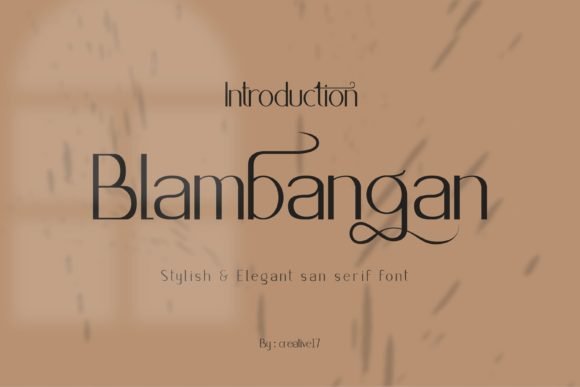
Discover the Timeless Elegance of Blambangan Font
As a designer, there’s nothing quite like the thrill of stumbling upon a font that sparks creativity and sets the imagination ablaze. For me, it was the moment I laid eyes on Blambangan Font – its sleek lines, elegant curves, and sophisticated vibe immediately captured my attention. This stylish sans serif font is more than just a pretty face; it’s a powerful tool that can elevate your designs to new heights.
Blambangan Font is designed to be versatile, making it the perfect addition to any designer’s toolkit. With its PUA encoding, you’ll have access to all the glyphs and swashes you need to create truly spectacular designs. Whether you’re working on a high-end branding project or a simple social media graphic, Blambangan Font is sure to bring a touch of sophistication and elegance to your work.
Blambangan Font Key Features
- Font Family: Blambangan Font is a sans-serif typeface designed for digital and print media.
- Unique Characteristics: Blambangan Font features a unique blend of modern and traditional design elements, with a focus on legibility and readability in digital environments.
Blambangan Font Review
Overall, I think Blambangan Font is a decent addition to any font library. ✨ One of the things I like about it is its unique blend of traditional and modern design elements. The font has a nice, balanced feel to it, making it suitable for a wide range of projects.
Another aspect I appreciate is the font’s legibility. ✨ Even at smaller sizes, the letters remain clear and easy to read, which is essential for any font.
- ⚠️ Limited support for non-Latin scripts, which might be a problem for designers working with multiple languages.
- ⚠️ Not as extensive as some other font families in terms of available weights and styles.
- ⚠️ May not be the best choice for projects requiring a more minimalist or simple aesthetic.
While Blambangan Font is not perfect, I still think it’s a solid choice for many design projects. It’s a versatile font that can add a touch of elegance and sophistication to any layout. If you’re looking for a font that’s easy to read and has a bit of character, Blambangan Font is definitely worth considering.
Tips for Getting the Most Out of Blambangan Font
Here are some tips for getting the most out of Blambangan Font:
- Use Blambangan Font for creative projects that require a unique and exotic feel.
- Combine Blambangan Font with other fonts to create a unique and eye-catching design.